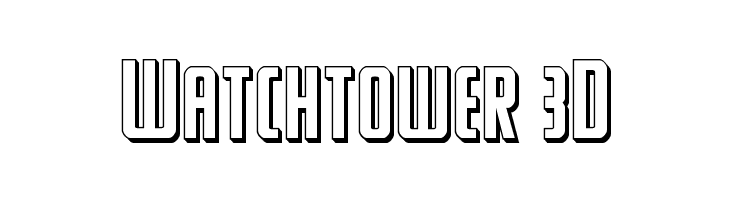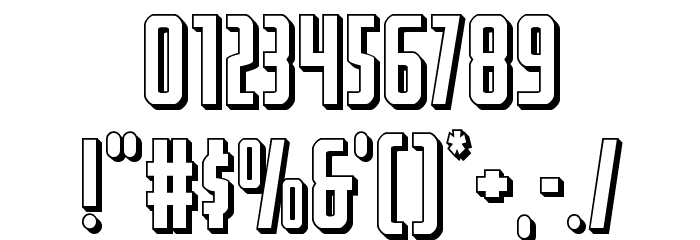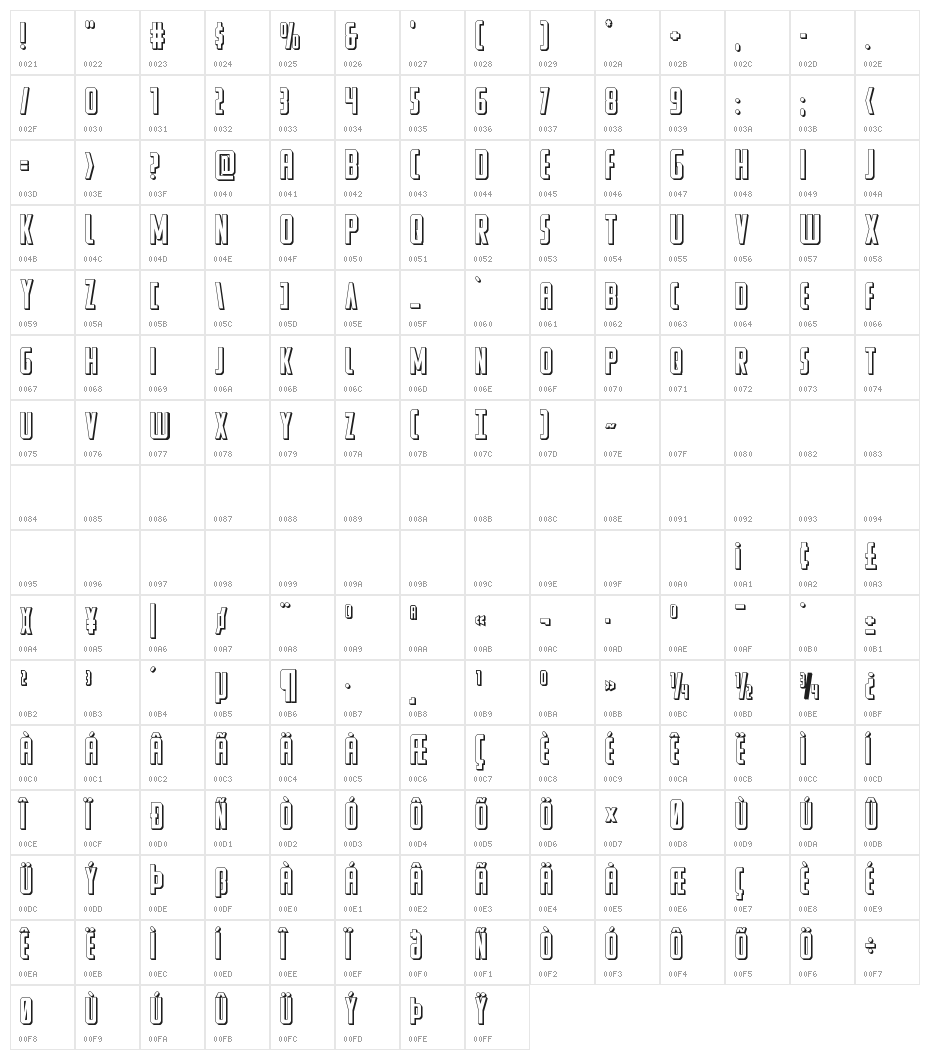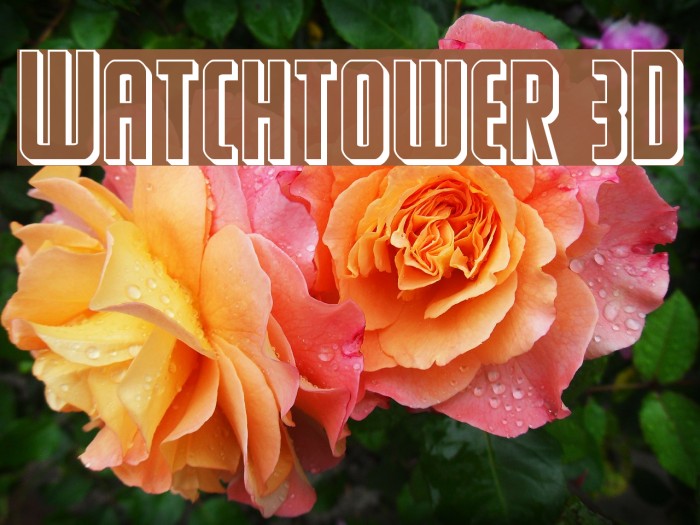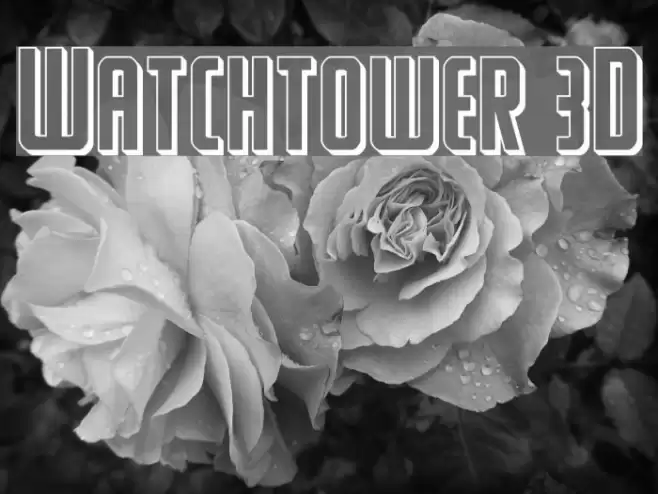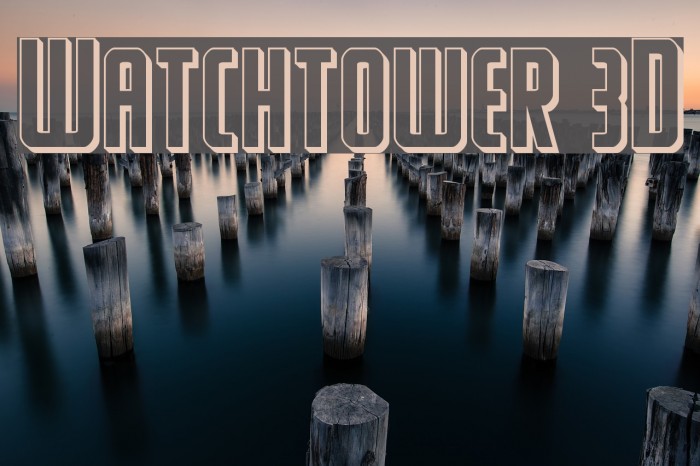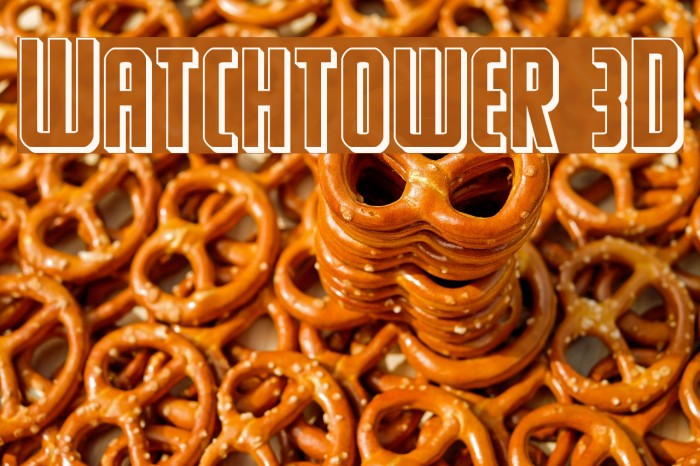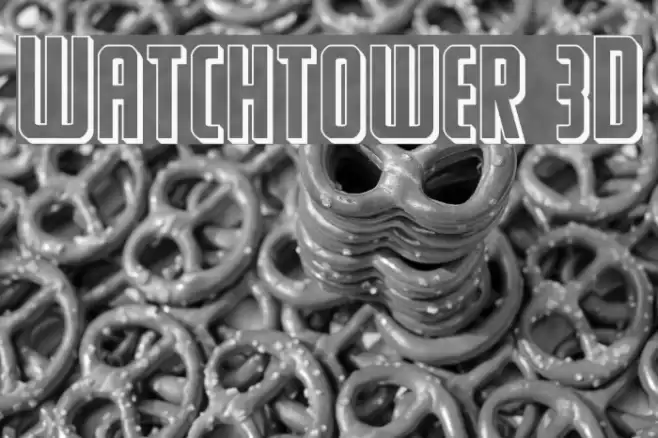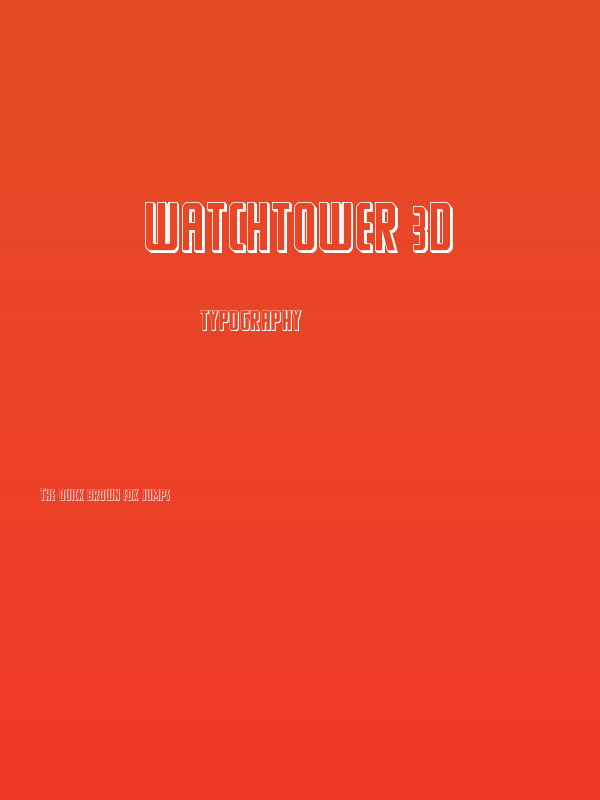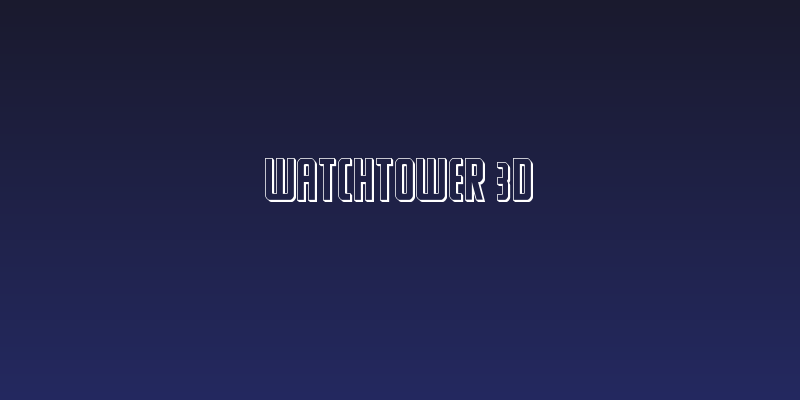
Watchtower 3D Font
Watchtower 3D Description
This font features a bold, three-dimensional style with a strong, impactful presence. The characters are uppercase and have a shadow effect that gives them a sense of depth and dimension. The design is geometric, with clean lines and sharp angles, creating a modern and futuristic appearance. The spacing between characters is consistent, allowing for readability while maintaining a compact look. This font is ideal for making statements and drawing attention, perfect for headlines or titles that need to stand out.